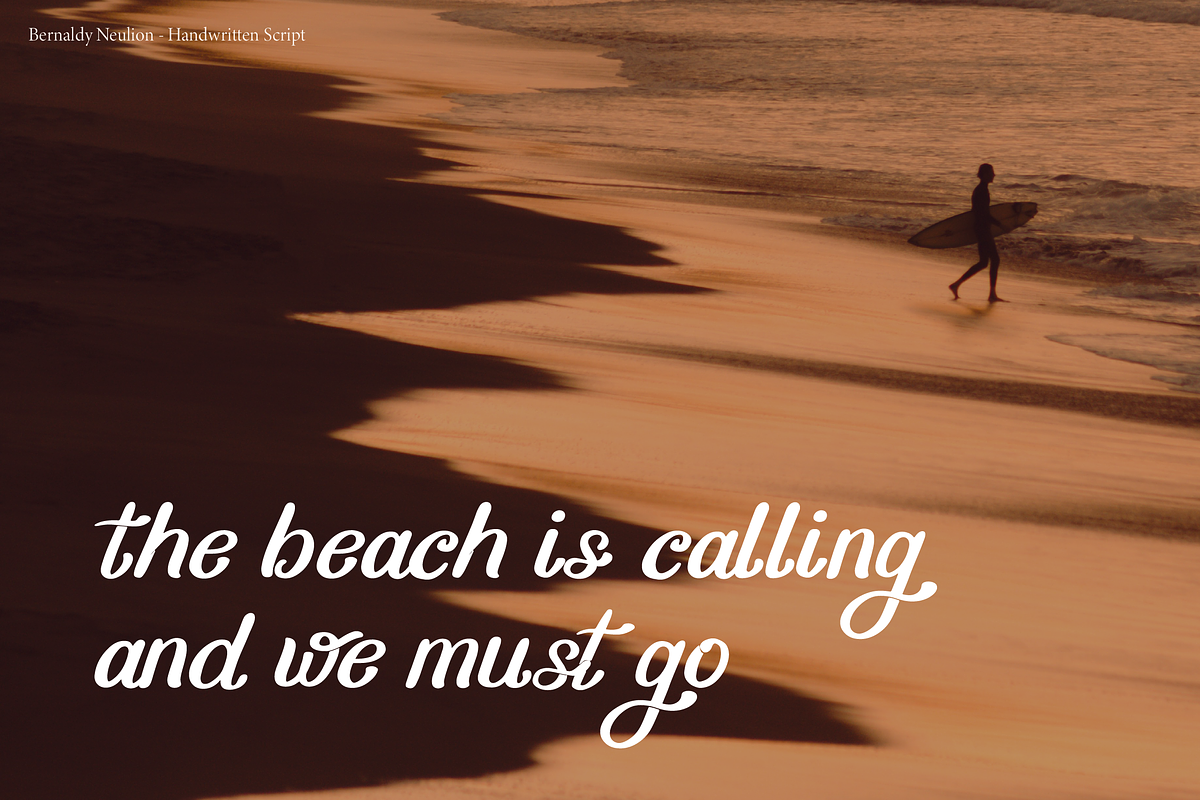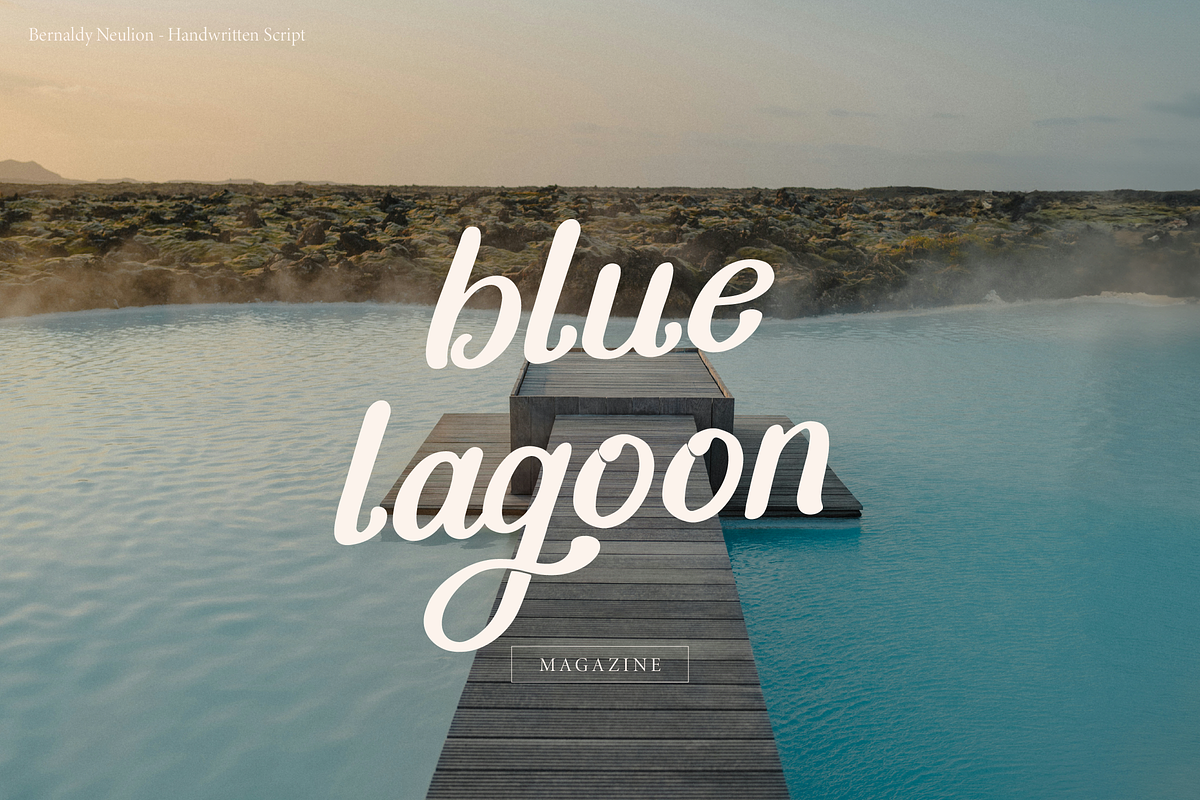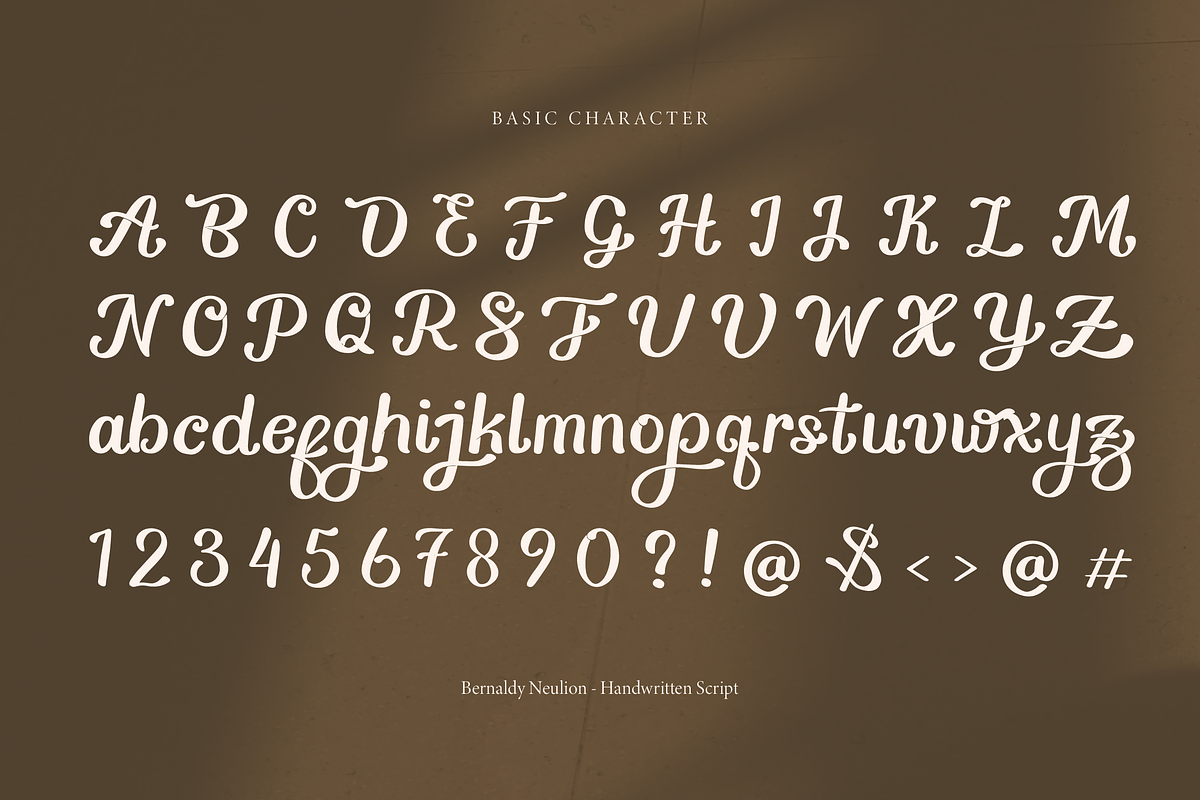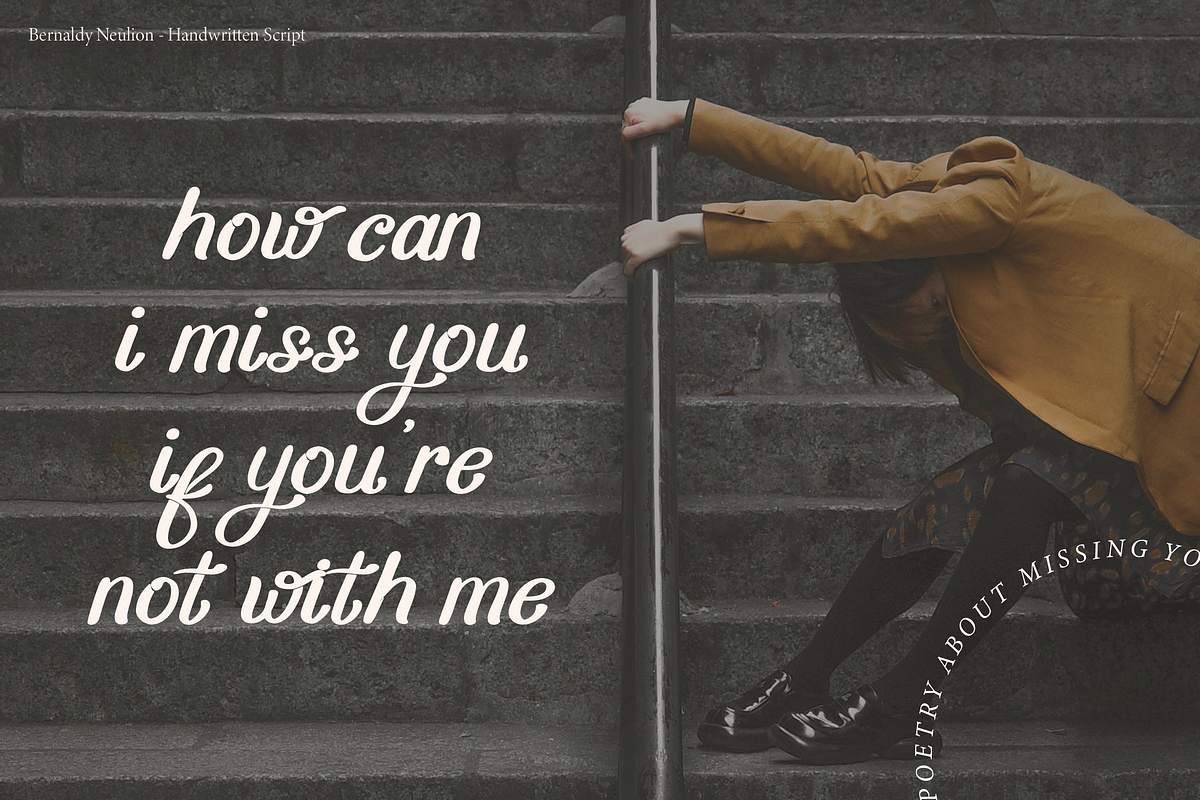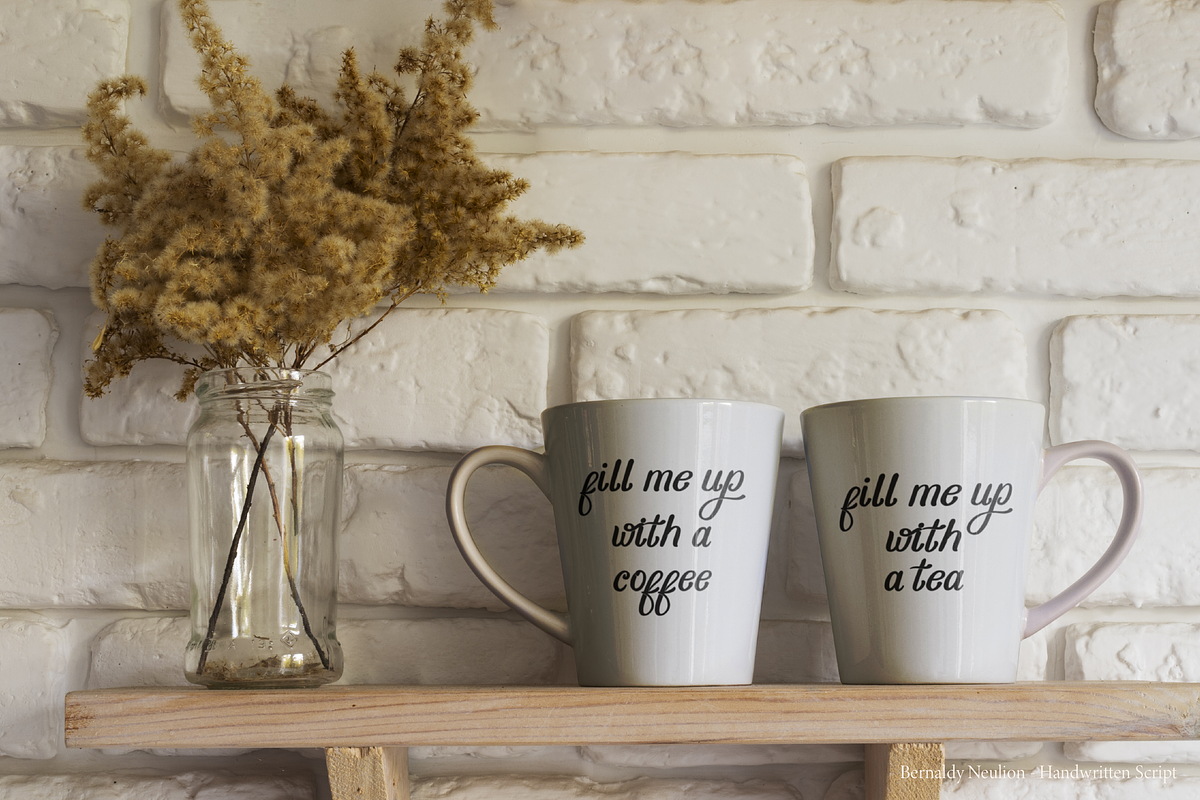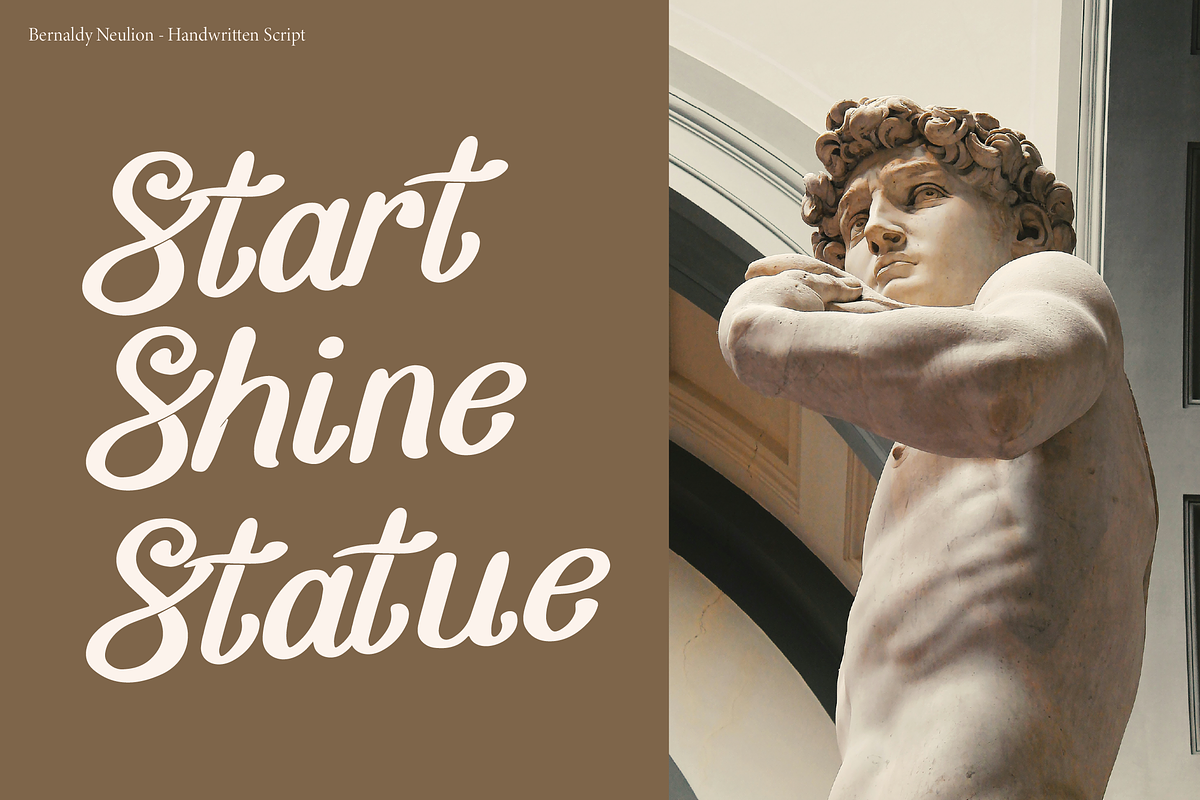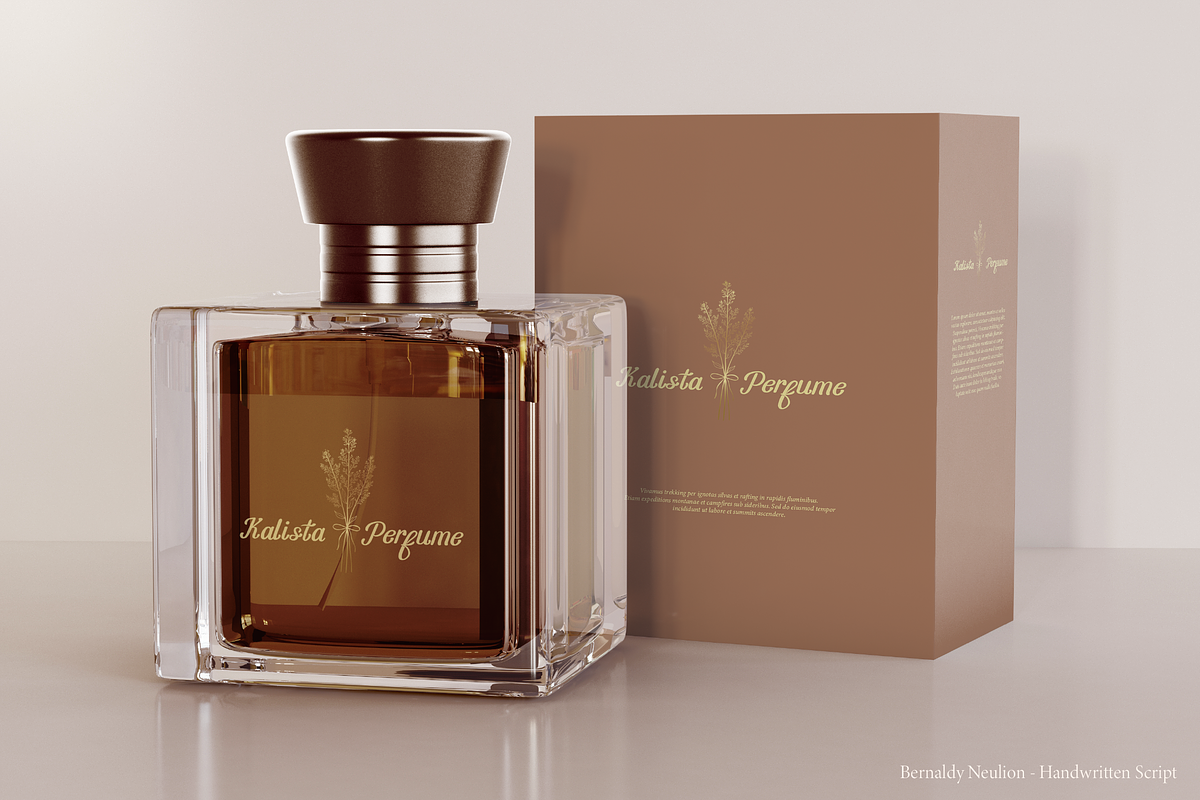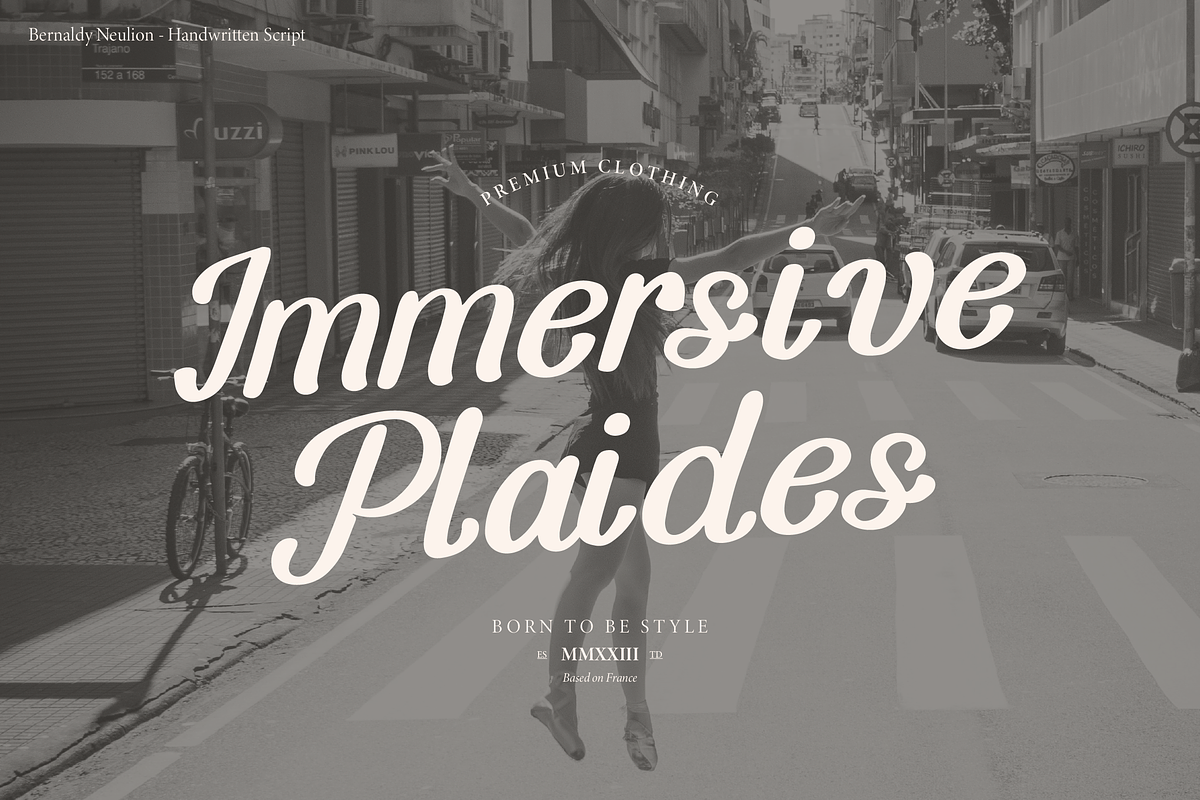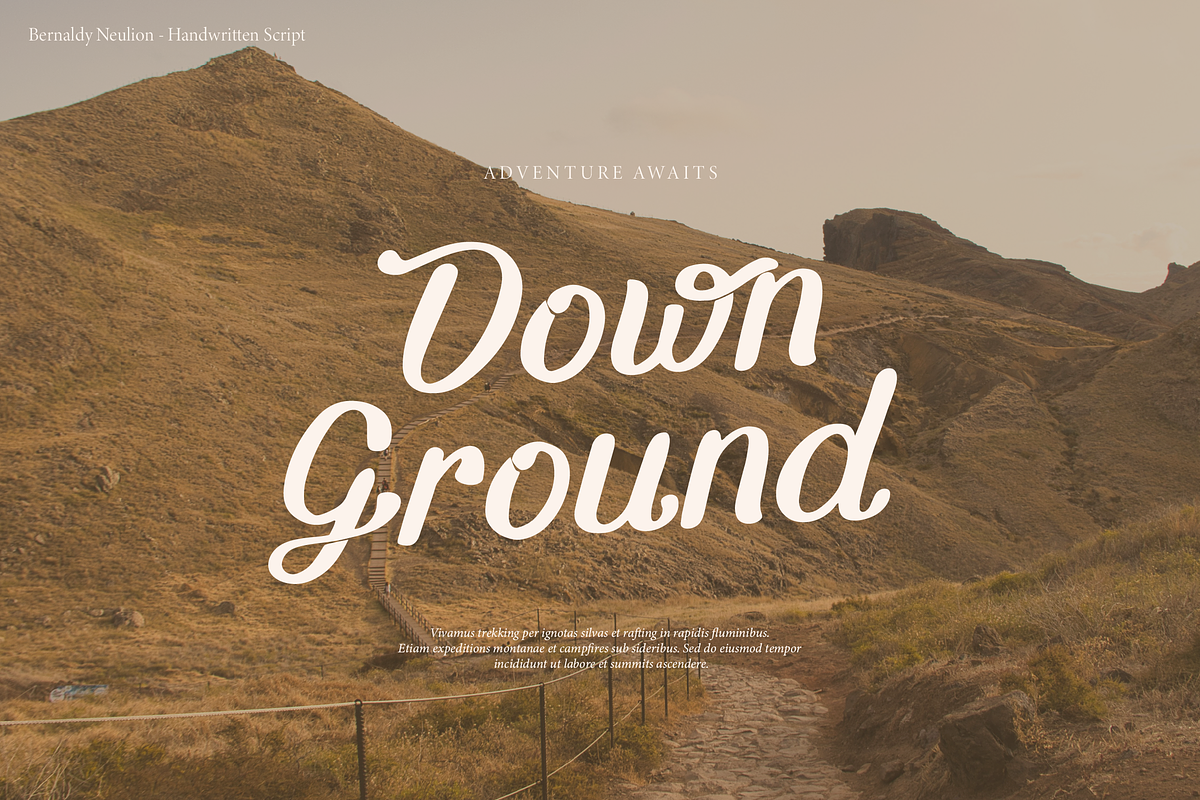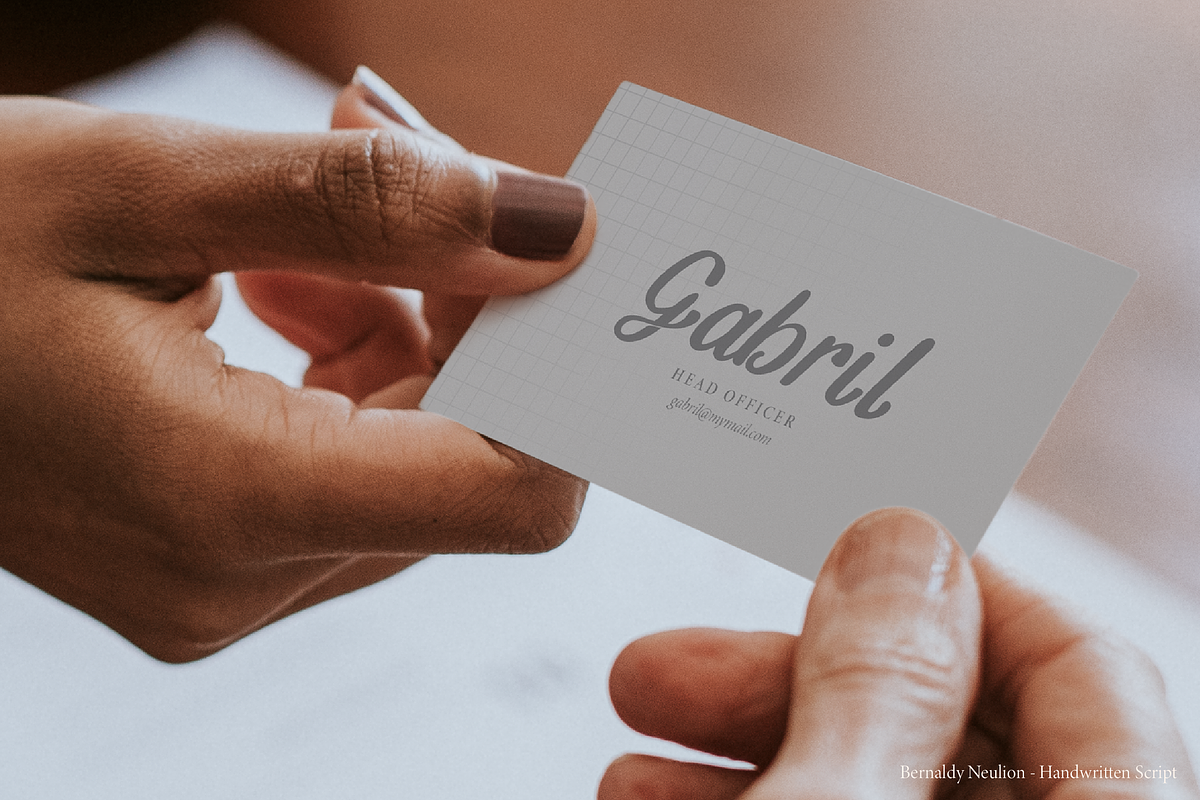
Bernady Neulion | Handwritten Script
Bernady Neulion | Handwritten Script Font, from Gracetypestudio, suitable for any projects such as: logos, branding projects, homeware designs, product packaging, mugs, quotes, posters, shopping bags, t-shirts, book covers, name card, invitation cards, greeting cards, label, photography, watermark, special events, and all your other lovely projects that need a beautiful script taste. ======================================================================== What’s Included : • Bernady Neulion (OTF/TTF/WOFF) • Web Font (Only WOFF format) • Standard glyphs • Alternate and Ligature • Works on PC & Mac • Simple installations • Accessible in the Adobe Illustrator, Adobe Photoshop, Adobe InDesign, even work on Microsoft Word and Other Software. • PUA Encoded Characters – Fully accessible without additional design software. • Fonts include multilingual support Hope you enjoy with our font!